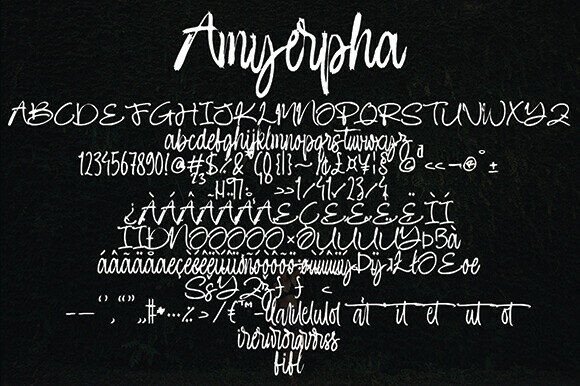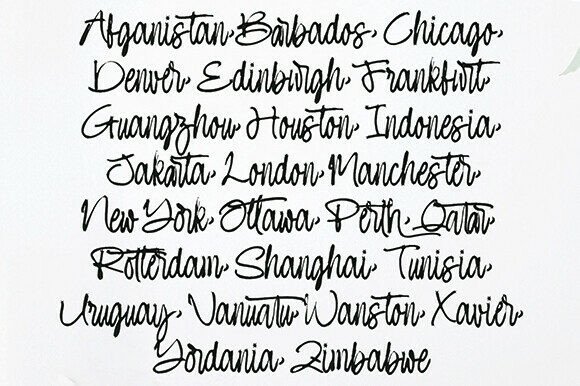
Introduction to Amyerpha Font
Have you ever sat at your desk, staring at a blank canvas, trying to capture the essence of your creative idea? The words won’t come, the brushstrokes won’t flow, and all you’re left with is a blank page. That’s when I discovered the Amyerpha Font, a game-changer for designers who crave that extra oomph in their creative projects.
With its unique, handwritten style and expressive strokes, Amyerpha Font brings a touch of personality to any design. Whether you’re creating a logo, poster, invitation, or quote, this font’s natural flow captures the energy of real handwriting, making it perfect for designers who value high-quality, unique design resources.
Key Features of Amyerpha Font
Honest Review: Amyerpha Font
As a designer, I’m always on the lookout for high-quality design resources that can elevate my creative projects. Recently, I had the chance to work with the Amyerpha Font, and I’m excited to share my honest review with you.
What works well: ✨ The Amyerpha Font is a beautiful, elegant script font that’s perfect for creating a sophisticated and refined look. I love how it can be used for both body text and headings, making it a versatile addition to any design project. The font also comes with a transparent background option, which makes it easy to use as a standalone element or overlay on top of images.
- High-quality design with a elegant script look
- Transparent background option for flexibility
Limitations: ⚠️ While the Amyerpha Font is a great addition to any design project, it may not be the best choice for projects that require a bold or modern look. Additionally, some users may find the font a bit too elegant or sophisticated for their taste.
Overall, I’m impressed with the Amyerpha Font and would definitely recommend it to designers looking for a high-quality, elegant script font for their creative projects.
Tips for Getting the Most Out of Amyerpha Font
To get the most out of Amyerpha Font, experiment with different font sizes, colors, and combinations. You can also use the font in conjunction with other design elements to create unique and eye-catching designs.
Common Use Cases for Amyerpha Font
Amyerpha Font is commonly used in graphic design, digital art, and other creative projects. It’s particularly useful for designs that require a high-quality, transparent background and a unique aesthetic.